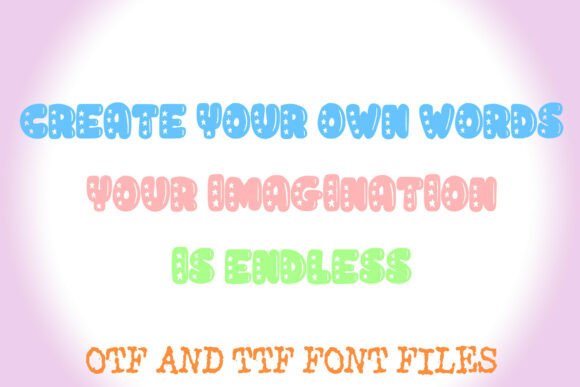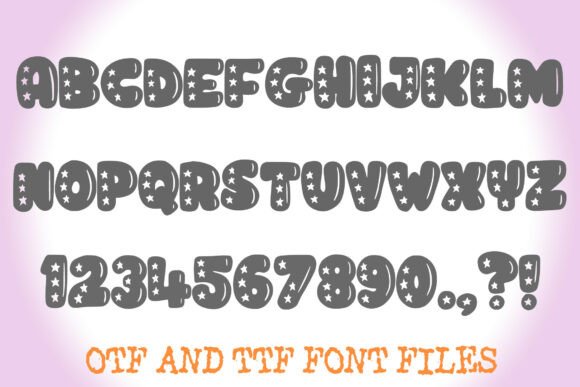
Make Your Designs Twinkle and Shine with Cute Star Font
Have you ever been in the middle of a design project, and suddenly, you just can’t seem to find the right font? I recall a particularly frustrating moment when I was working on a children’s book layout. My client wanted something that would make the story sparkle, but I was stuck on a bland, generic font. That’s when I stumbled upon Cute Star Font, and let me tell you, it was like a ray of sunshine breaking through the clouds! ✨
A Font that Brings Joy and Magic
Cute Star Font is more than just a typeface; it’s an instant dose of joy and magic. Each character is crafted with a charming, rounded outline, and its interior glows with a constellation of cute little stars. This unique and enchanting visual effect makes it an ideal choice for children’s books, nursery decor, celestial-themed events, playful branding, party invitations, or any design calling for a unique blend of sweetness and wonder.
What I Love About Cute Star Font
- ✨ Playful and Whimsical: The font’s bubbly letterforms and scattered stars evoke a sense of playfulness and wonder.
- ✅ Easily Readable: Despite its decorative nature, Cute Star Font remains surprisingly readable, even at smaller sizes.
- 💫 Versatile: This font can be used for a wide range of projects, from digital art to print materials.
While Cute Star Font is absolutely delightful, there are a few things to keep in mind:
- ⚠️ Overuse: Because of its attention-grabbing nature, it’s easy to overuse this font. Make sure to balance it with simpler typefaces to maintain visual hierarchy.
- 🤔 Legibility at Small Sizes: While generally readable, the font’s decorative elements can make it tricky to read at very small sizes (below 10pt). Use it wisely!
The Story Behind Cute Star Font
Cute Star Font was designed with the intention of spreading joy and whimsy. Its creator, a passionate typographer, wanted to craft a font that would bring a smile to people’s faces. Inspired by the magic of starry nights and childhood wonder, this font was born. Today, it’s a favorite among designers and crafters looking to add a touch of enchantment to their projects.
| Font Name | Cute Star Font |
| Author | squeebcreative |
| What type of projects is Cute Star Font best suited for? | Children’s books, nursery decor, celestial-themed events, playful branding, party invitations, and digital art. |
| Is Cute Star Font available in different weights or styles? | Currently, Cute Star Font comes in a single style, but its versatility and OpenType features offer plenty of creative possibilities. |